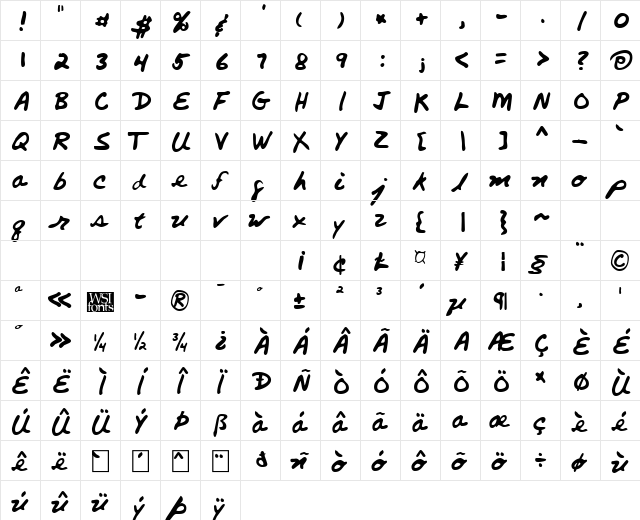
Sigmund Normal
Design Context for Sigmund Typeface
Sigmund is a composed and adaptable typeface that performs quietly and consistently across a wide range of design contexts.